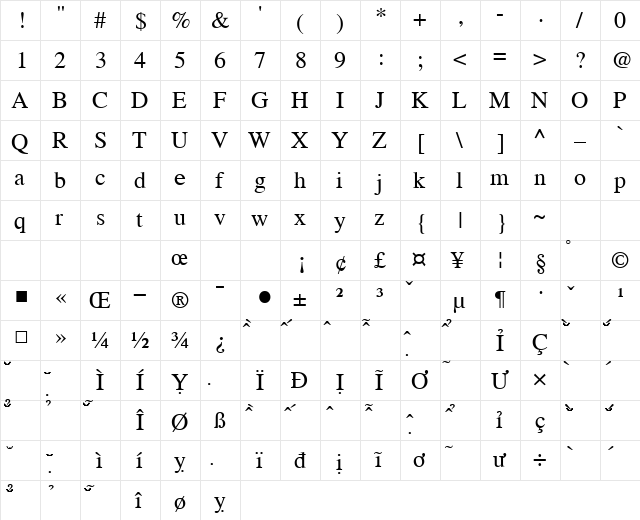
VNI-WIN Sample Font Normal
Design Context for VNI-WIN Sample Font Typeface
VNI-WIN Sample Font is a composed and adaptable typeface that performs quietly and consistently across a wide range of design contexts.